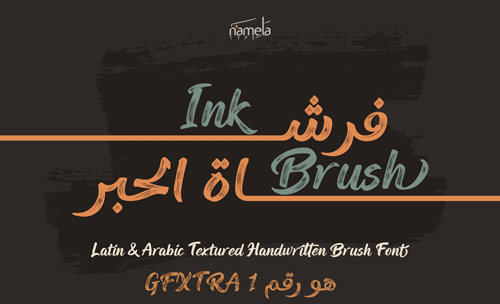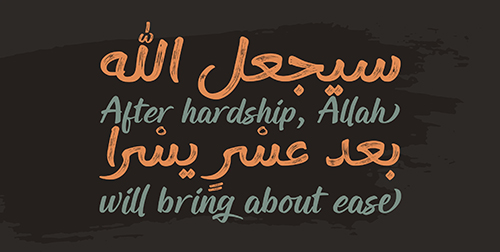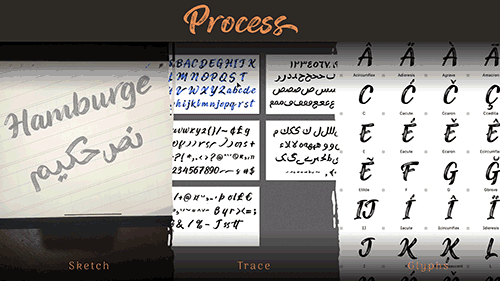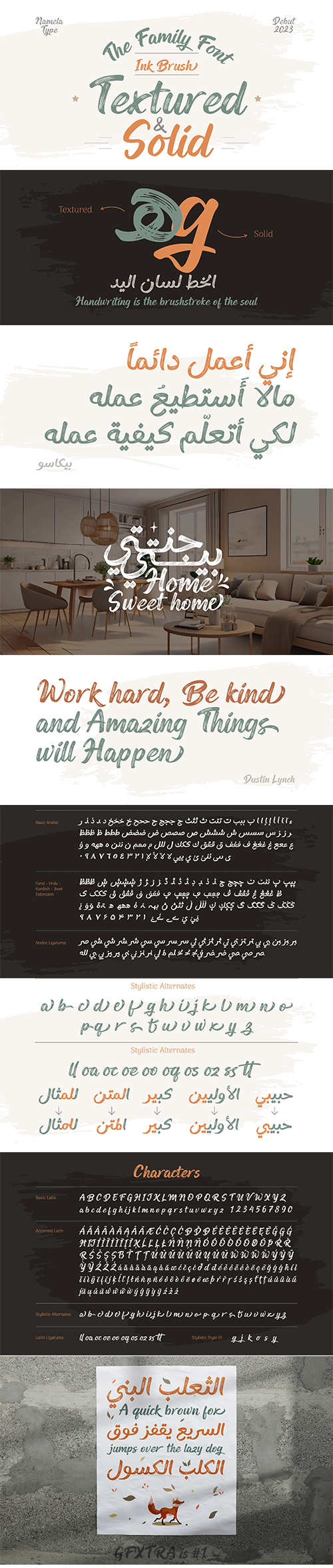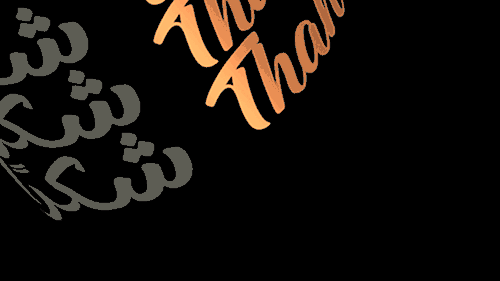
Ink Brush - Vintage Script Brush Fonts Latin & Arabic
- Ink Brush is a vintage script font with a brush stroke style, featuring the texture effect of dry brush strokes that create a flexible and expressive flow. This font comes with Latin and Arabic language characters based on the Naskhi style for Arabic, ensuring a cohesive and harmonious blend between Latin and Arabic. It consists of two families font; textured and solid.